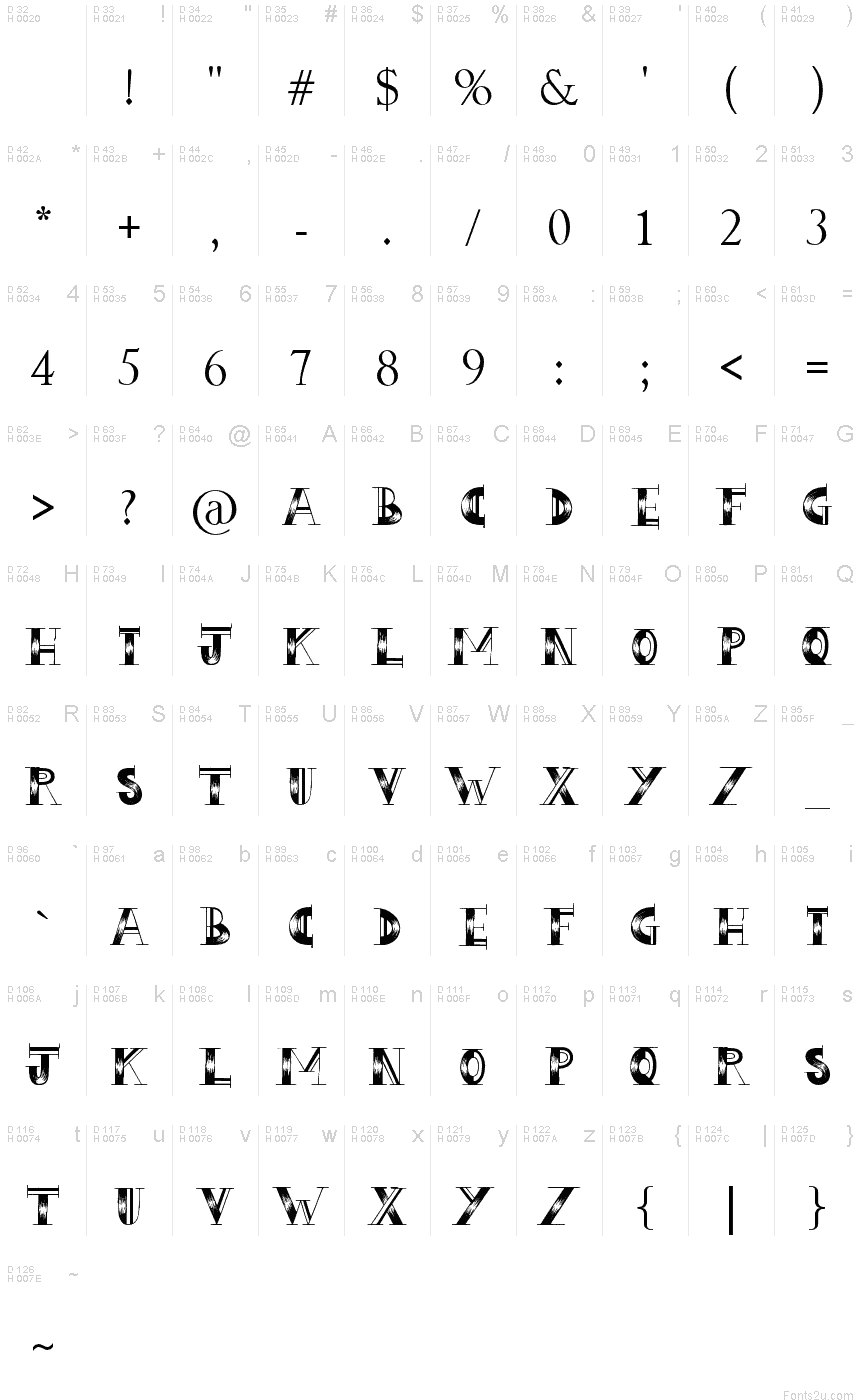
Love Hue by TattooWoo is a free distressed serif display font with tall capitals and abrupt shifts between hairline strokes and broad black forms. Its letters overlap crisp classical outlines with rough brushed patches that make the texture feel printed and scraped. The effect is theatrical and unruly.
Music and nightlife themes suit its tense combination of elegance and abrasion, making it useful for album artwork, club posters, and event graphics. Fashion packaging and editorial covers can also use the lettering as part of a collage-like image.